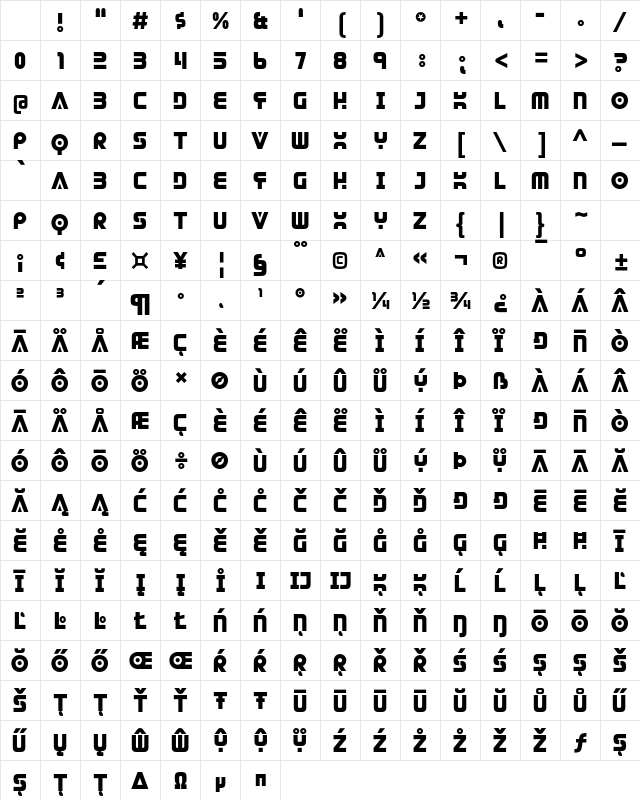
Complete Dendritic Voltage Regular glyph index. Displaying only characters natively supported by Dendritic Voltage Regular font.
Dendritic Voltage is a composed and adaptable typeface that performs quietly and consistently across a wide range of design contexts.